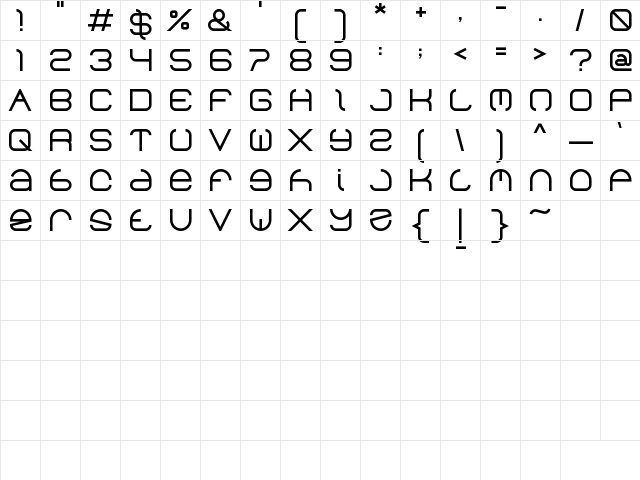
helen Regular
Design Context for helen Typeface
helen offers clean, dependable letterforms without strong stylistic allegiance, making it a practical choice for designers who need flexibility.
Pro Tip: Use helen in both headline and body roles to test its range before committing to a single application.